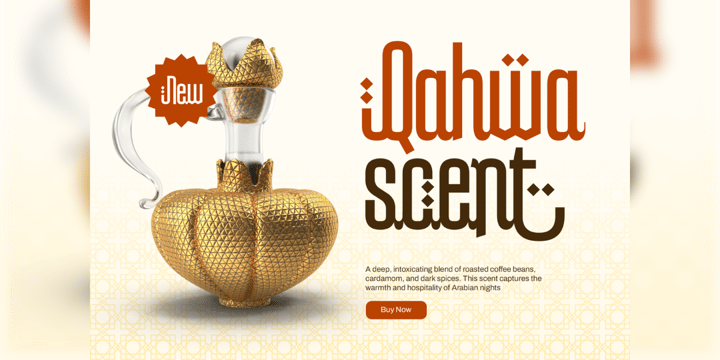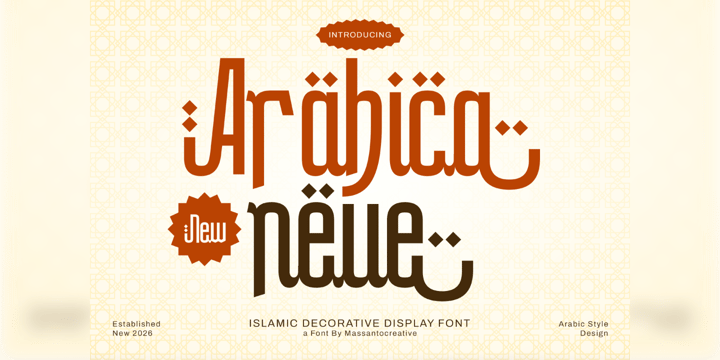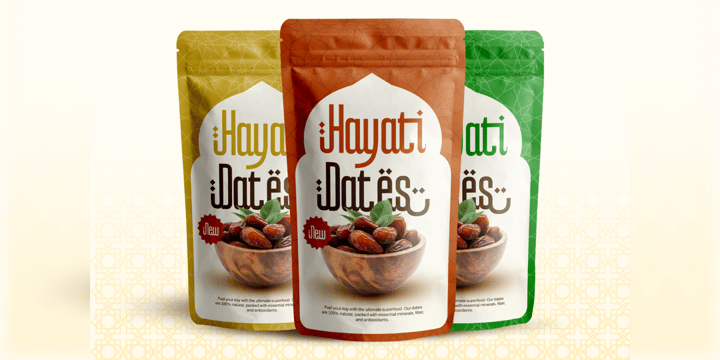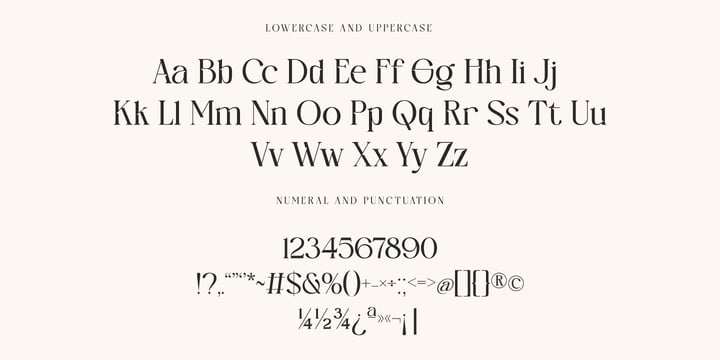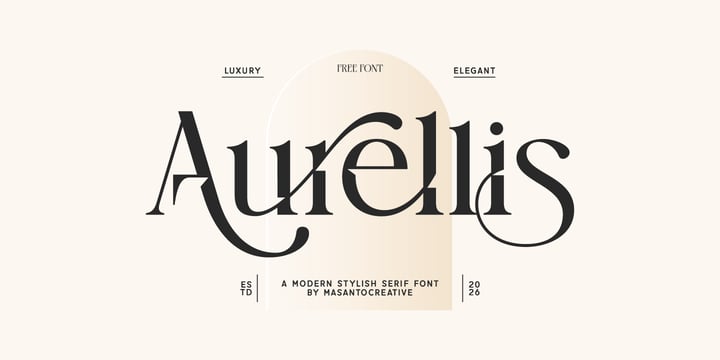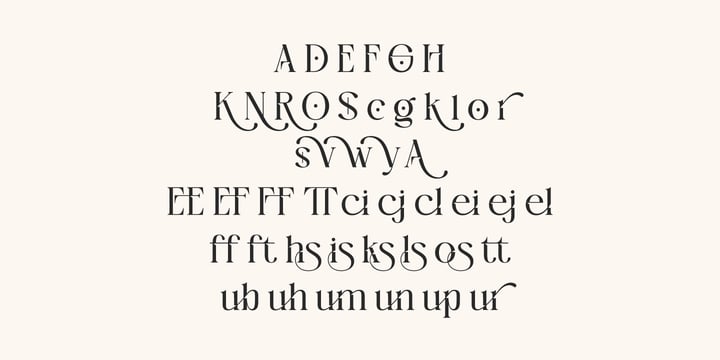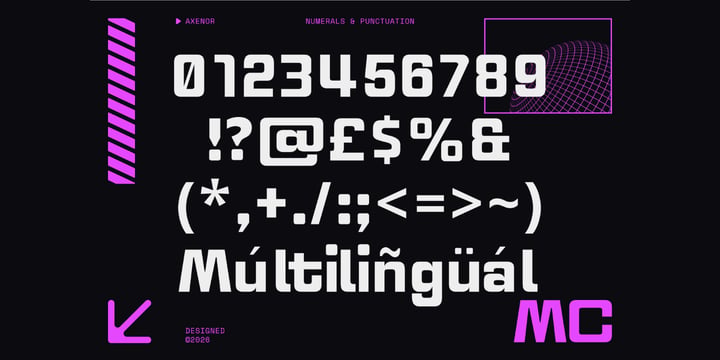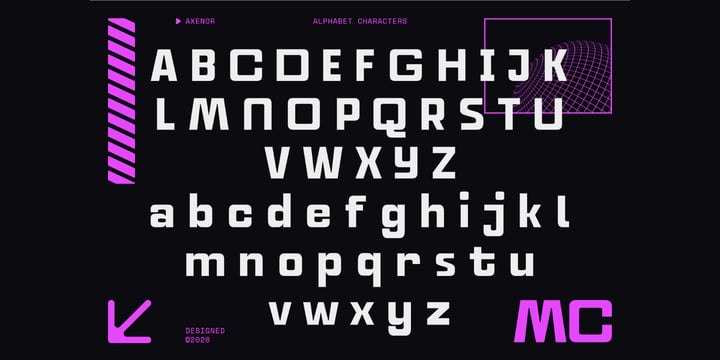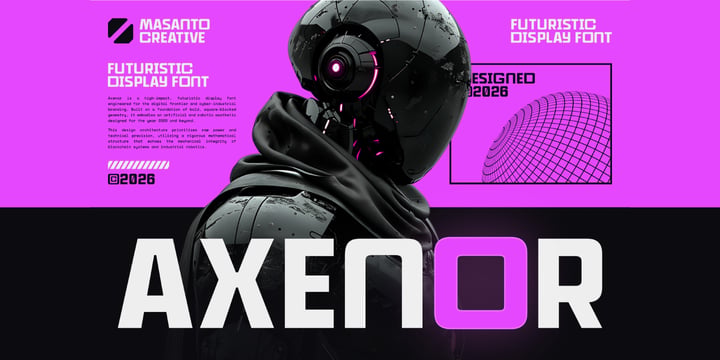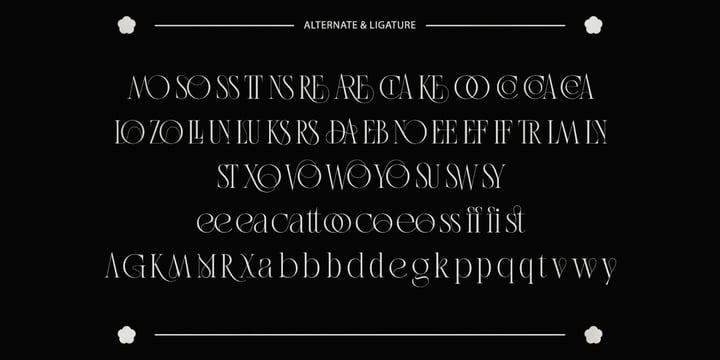
Sur Anto
I Suranto am a passionate typeface designer and the founder of Kangfont Studio, established in 2019. With a strong dedication to creating modern and masculine typefaces, I aim to craft designs that blend exceptional functionality with bold, memorable aesthetics. My work is driven by a deep understanding of the power of typography and an unwavering commitment to detail.
My journey into type design was inspired by a love for clean, structured forms and the expressive potential of letterforms. With a background in design, I founded Kangfont Studio to push the boundaries of traditional typeface design and explore the intersection of timeless elegance and contemporary style.
I am known for creating typefaces that strike the perfect balance between visual appeal and usability, delivering solutions that elevate any creative project. Each font I design is a reflection of my belief that typography should not only communicate but also inspire.
In addition to my work as a typography designer, I am also an experienced Illustrator and logo designer and have had clients from all over the world. I am committed to sharing my knowledge and experience with others and I am always looking for new ways to inspire and educate others about the power of typography.